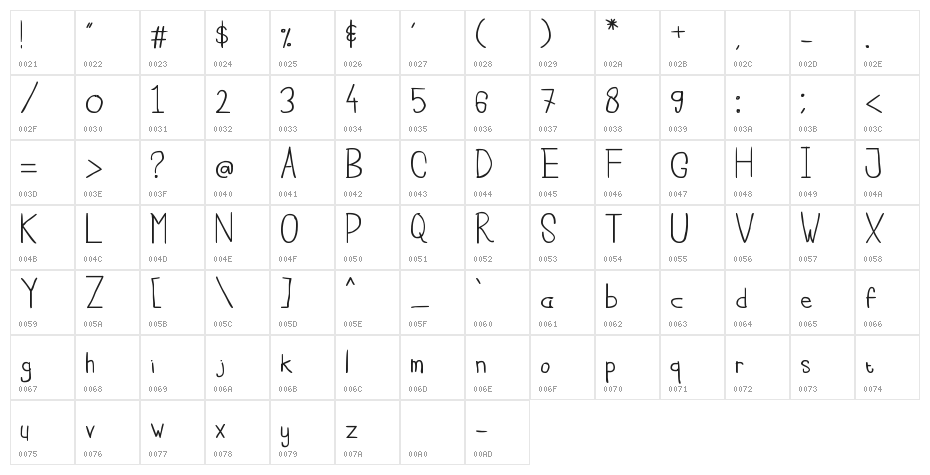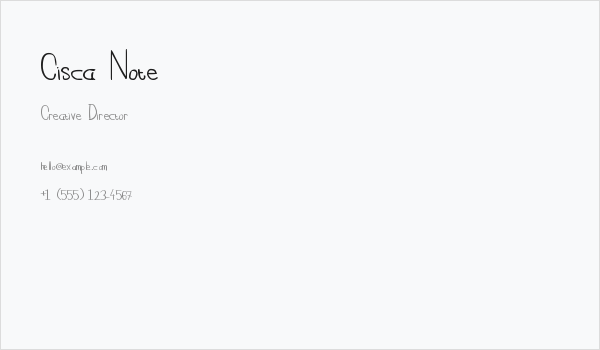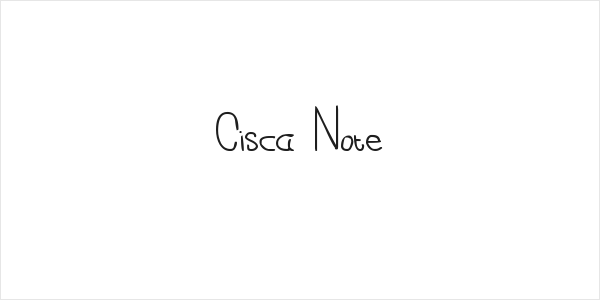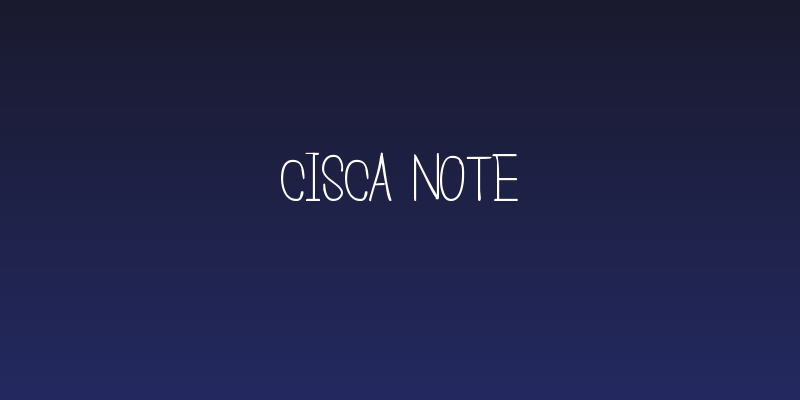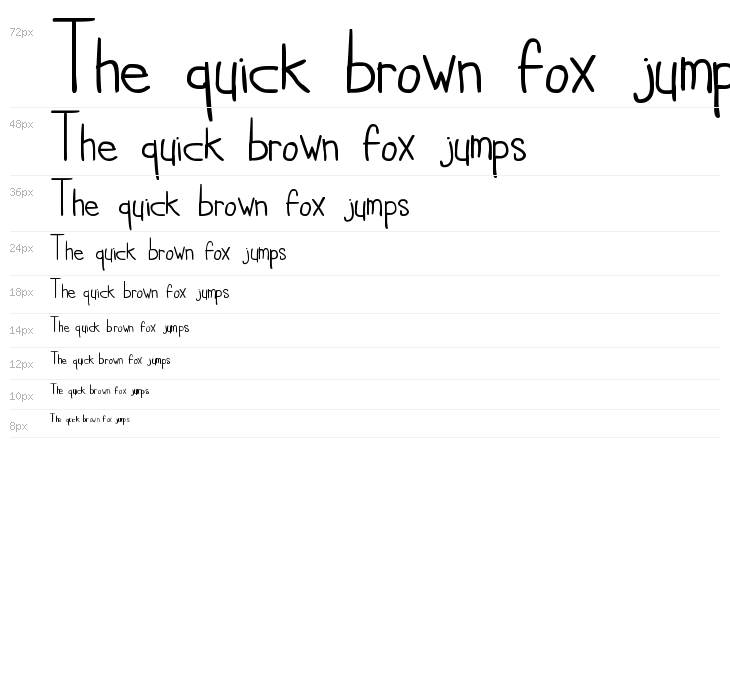
Cisca Note Font
Cisca Note Description
This font features a playful and informal handwritten style, characterized by its tall, narrow letters and slightly irregular line quality. The uppercase letters are bold and elongated, giving a sense of height and elegance, while the lowercase letters maintain a consistent flow with rounded edges. Numbers are clear and legible, matching the overall style of the alphabet. Special characters are creatively designed, adding to the font's whimsical nature. The font's unique charm makes it suitable for projects that require a personal touch or a casual, friendly vibe.
| Width | Condensed |
| Overall Style | Casual, Playful |
| Use Case | Headlines, Informal text, Creative projects |
| Proposed Projects | Ideal for greeting cards, children's books, personal blogs, and creative branding. |